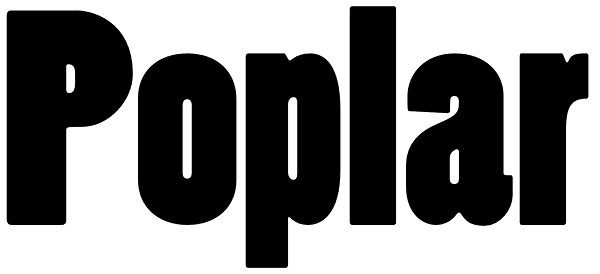
Poplar
Poplar is an Adobe Originals typeface designed by Barbara Lind in 1990 for the Adobe Wood Type series. Poplar, a Gothic condensed, was designed from photographs taken by Rob Roy Kelly of the one surviving copy of an 1830 William Leavenworth type...